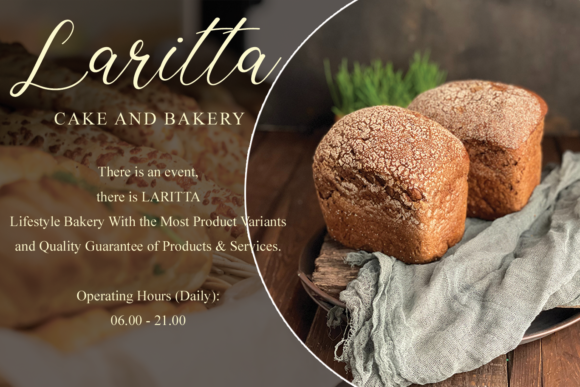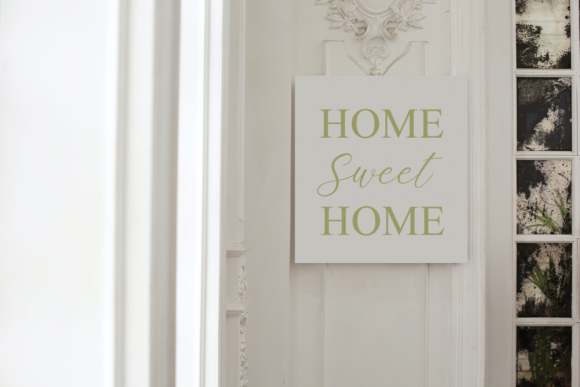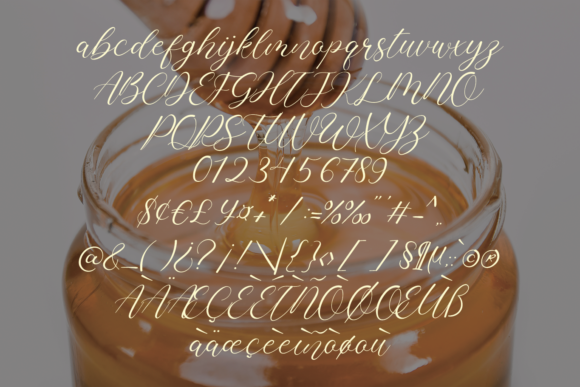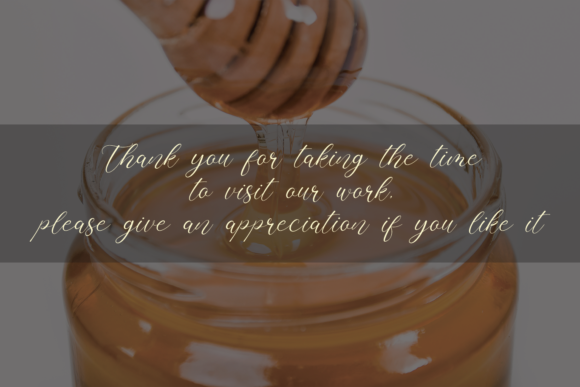
Aprilia Font: Elevate Your Designs with Elegance and Sophistication
Are you searching for a font that embodies elegance and class? Look no further than the stunning Aprilia font. This lovely and delicate script font is specifically designed for those who crave a beautiful and refreshing look for their designs. In this article, we’ll dive into the world of Aprilia font, exploring its features, benefits, and uses, to help you unlock its full potential.
The Beauty of Aprilia Font
Aprilia font is a masterpiece of typography, boasting a unique and captivating style that exudes sophistication and refinement. Its delicate strokes and elegant curves make it perfect for designs that require a touch of luxury and poise. Whether you’re working on a branding project, wedding invitation, or social media graphics, Aprilia font is sure to impress.
Key Features of Aprilia Font
- Delicate and Elegant: Aprilia font features a slender and refined design, making it ideal for creating sophisticated and eye-catching visuals.
- Script Style: This beautiful script font is perfect for adding a personal touch to your designs, making them stand out from the crowd.
- Highly Versatile: Aprilia font can be used for a wide range of design projects, from logos and branding to invitations, posters, and social media graphics.
- Easy to Read: Despite its delicate nature, Aprilia font remains highly legible, ensuring your message is conveyed with clarity and precision.
Benefits of Using Aprilia Font
So, why choose Aprilia font for your designs? Here are just a few benefits you can expect:
- Enhanced Visual Appeal: Aprilia font adds a touch of elegance and sophistication to your designs, making them more visually appealing and engaging.
- Unique and Memorable: With its distinctive style, Aprilia font helps your designs stand out from the crowd, leaving a lasting impression on your audience.
- Time-Saving: Aprilia font is easy to use and works seamlessly with various design software, saving you time and effort in the creative process.
Using Aprilia Font in Your Designs
Aprilia font is incredibly versatile and can be used in a variety of design projects. Here are some ideas to get you started:
- Wedding Invitations: Add a touch of romance and sophistication to your wedding invitations with Aprilia font.
- Branding and Logos: Use Aprilia font to create a luxurious and memorable brand identity that sets you apart from the competition.
- Social Media Graphics: Elevate your social media presence with stunning graphics featuring Aprilia font.
- Posters and Flyers: Create eye-catching posters and flyers that showcase your message in style with Aprilia font.
Tips and Tricks for Working with Aprilia Font
To get the most out of Aprilia font, here are some tips and tricks to keep in mind:
- Pair with Contrasting Fonts: Combine Aprilia font with bold and contrasting fonts to create visual interest and hierarchy.
- Experiment with Colors: Try pairing Aprilia font with different colors to create unique and eye-catching effects.
- Pay Attention to Spacing: Ensure adequate spacing between letters and lines to maintain readability and elegance.
Aprilia font is a beautiful and elegant script font that can elevate your designs to new heights. With its delicate strokes, elegant curves, and highly versatile nature, it’s perfect for a wide range of design projects. By incorporating Aprilia font into your workflow, you’ll be able to create stunning visuals that exude sophistication and refinement. So why wait? Discover the beauty of Aprilia font and take your designs to the next level.